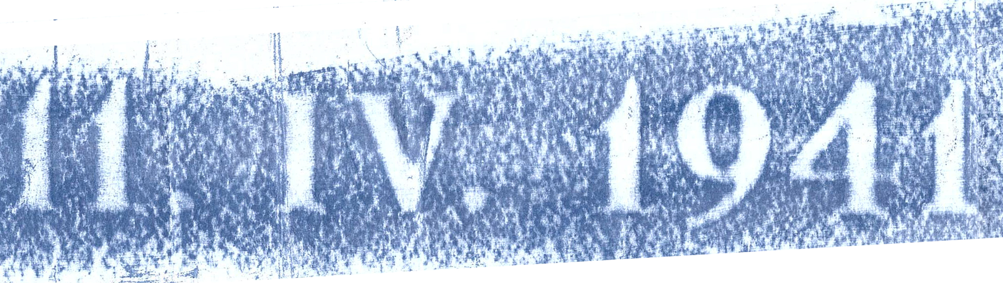
The picture didn’t post last time. Would appreciate help identifying this font. Thank you.
Hi Paul, it is hard to tell for sure, but this looks like it may be a hand drawn Roman.